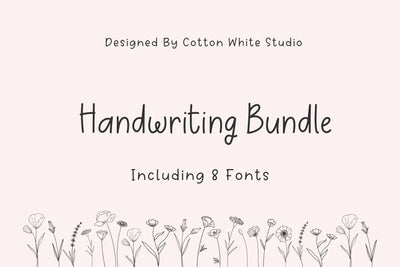
Handwriting Font Bundle
Introducing the Handwriting Font Bundle– Unleash your creativity with this bundle including 8 fun fonts that allows you to effortlessly combine different typefaces to create unique and fun designs.
Perfect for digital notes, planners, logos, notebooks, journals, labels, blogs, quotes, greeting cards, apparel, posters, baby clothing, picture books and so much more... basically anything that requires a handwritten look! 😍